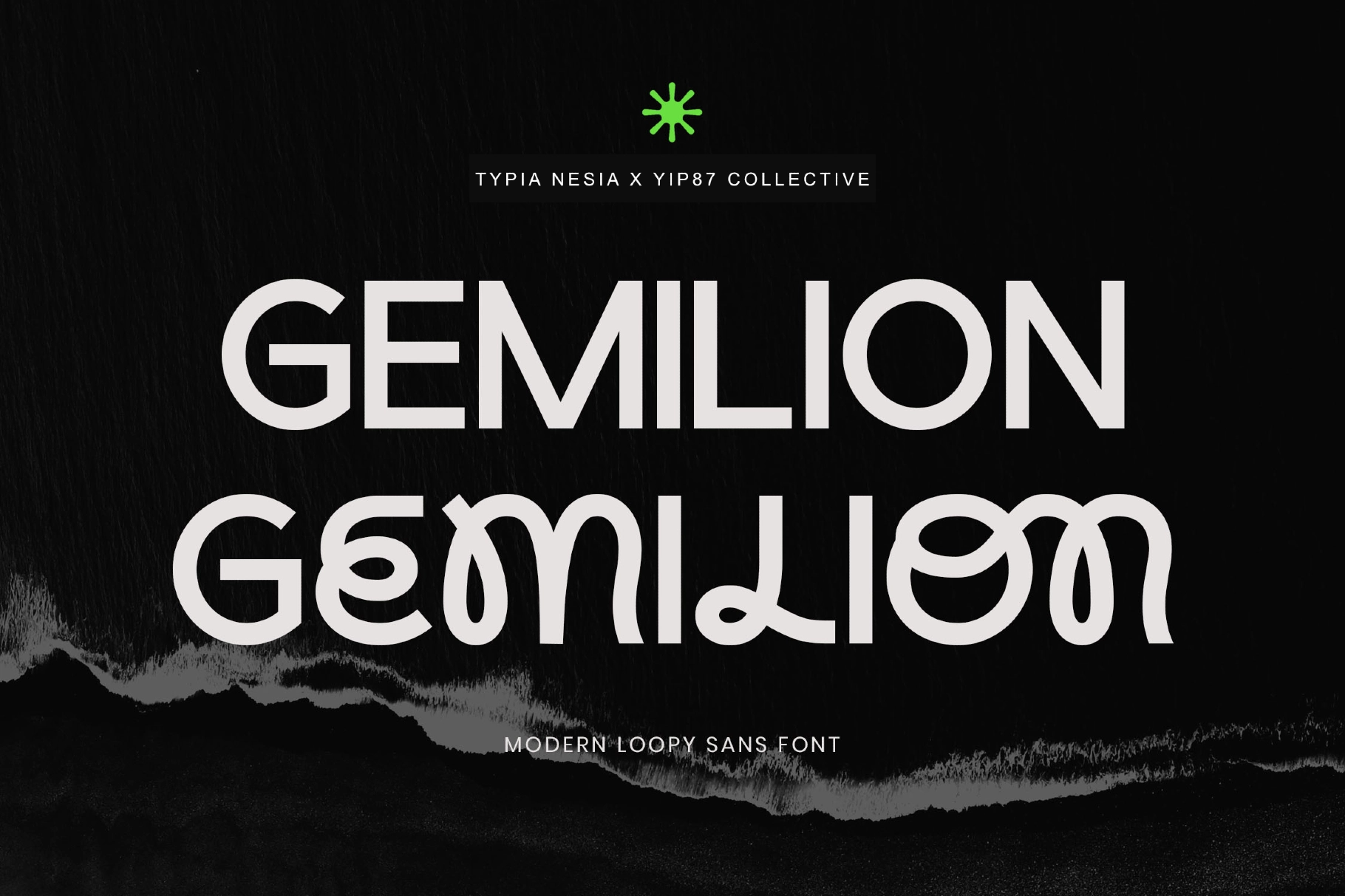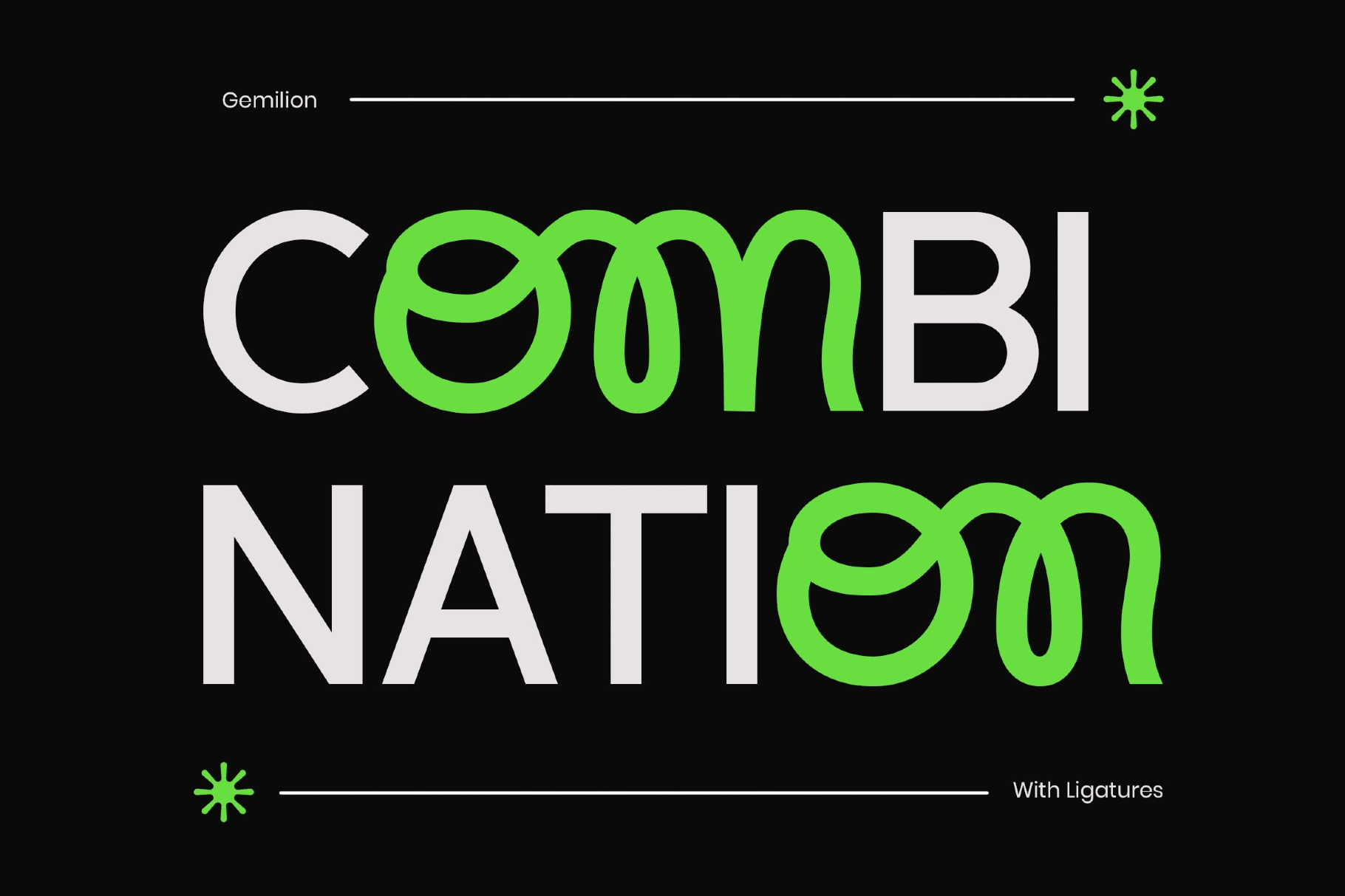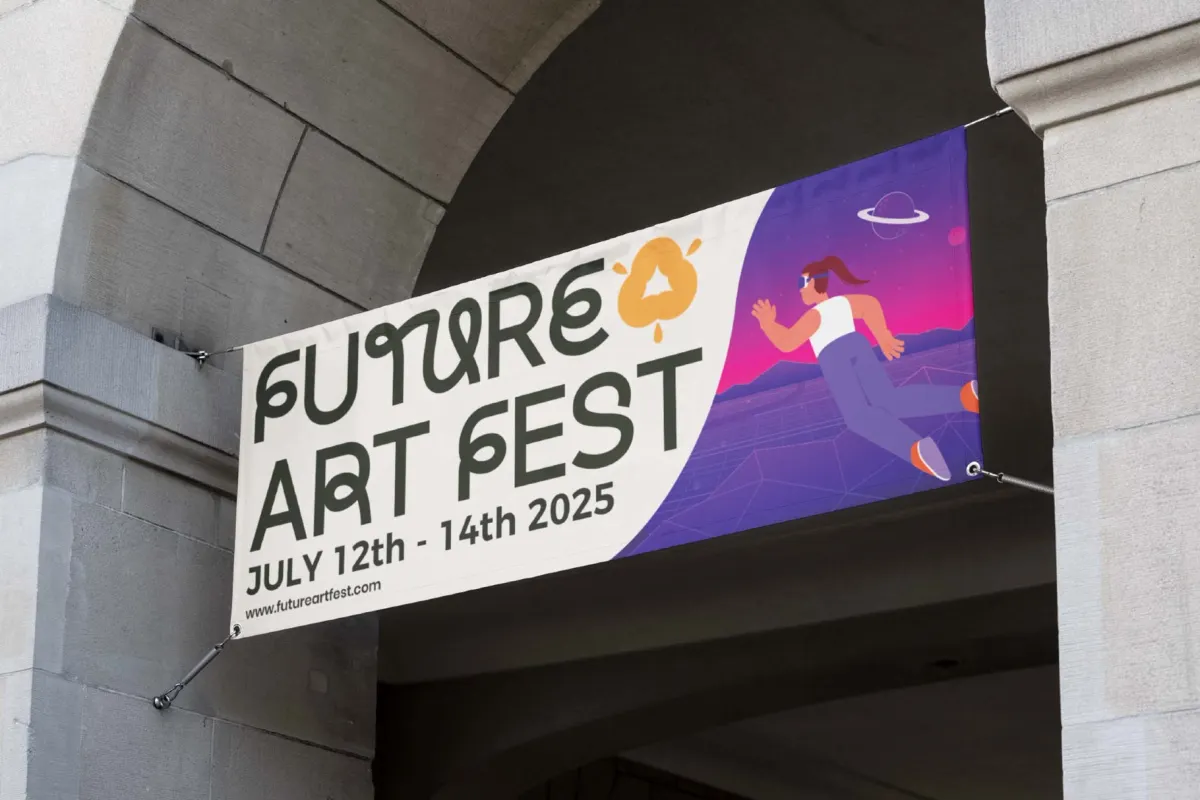
Gemilion - Loopy Bold Sans
Gemilion
Gemilion is a modern loopy sans font that blends contemporary aesthetic with playful and unique loopy details. This font offers a fresh and lively approach to modern typography, perfect for adding personality and creativity to your designs, such as branding projects, playful logos, product packaging, social media graphics, creative posters, whimsical headlines, advertising campaign, logo design and anymore.